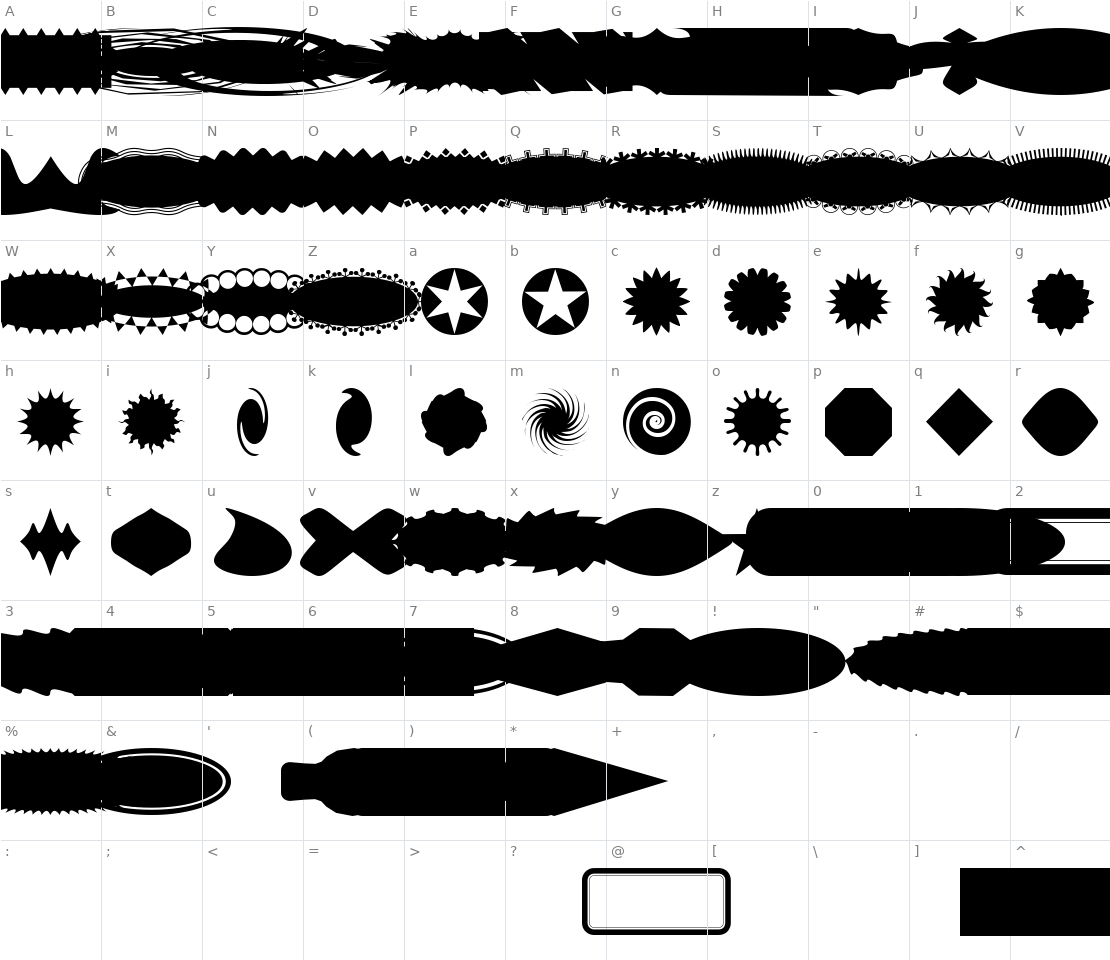
ButtonButton AOE
ButtonButton AOE is a dingbats font from Astigmatic One Eye Typographic Institute filled with geometric shapes, abstract icons, and decorative symbols rather than traditional letterforms. The designs lean clean and ornamental, with a mix of circles, squares, and more complex patterns that work as bullet points, dividers, or standalone graphic elements. Useful anywhere you need simple, versatile shape glyphs without reaching for a full icon set.